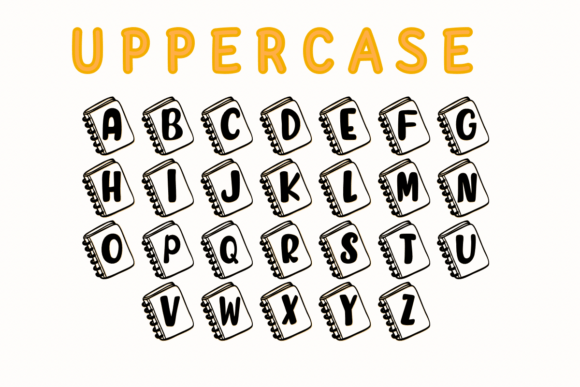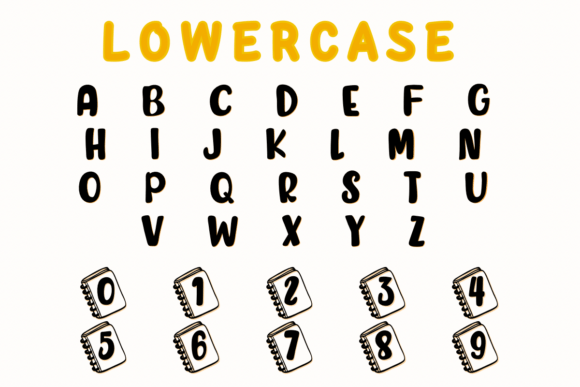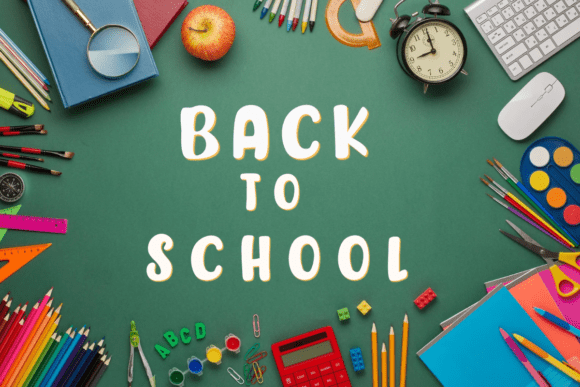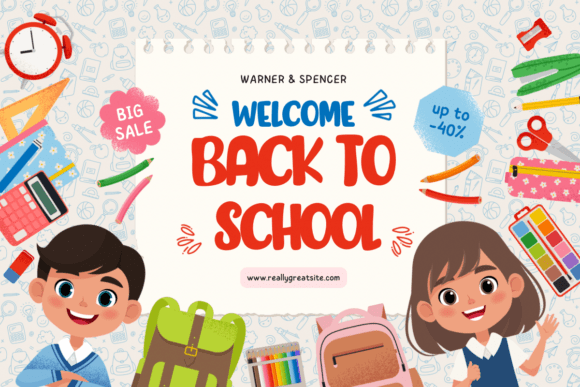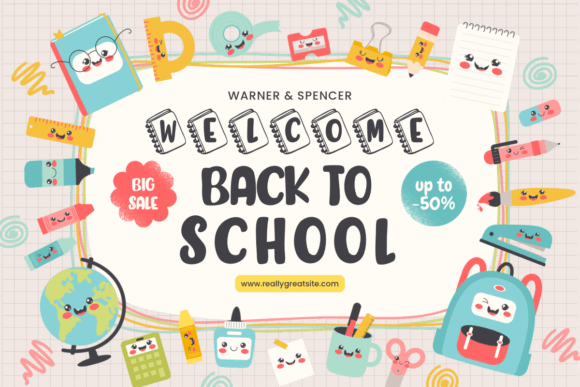
Spark a Love for Learning with Introduction Book: A Charming Decorative Font
Are you looking for a font that can capture the playful energy of the classroom and inspire a love for learning? Look no further than Introduction Book, a charming decorative font designed specifically for educational materials and youth-oriented designs. This delightful typeface features friendly, hand-drawn letterforms with a soft, rounded aesthetic that is sure to delight students and teachers alike.
The Perfect Font for Educational Materials
Introduction Book is characterized by its approachable rhythm and organic terminals, which evoke the nostalgic feeling of early school days and handwritten notes. This font is perfect for creating educational materials that are both fun and engaging. Whether you’re designing classroom decor, children’s book titles, teacher resources, academic event flyers, or school-themed social media content, Introduction Book is an extraordinary choice.
With Introduction Book, you can add a touch of handcrafted warmth and optimistic, academic charm to every word. This font is ideal for crafting standout headers for “Back to School” campaigns, creating fun worksheets, or designing eye-catching posters for academic events. The friendly and approachable nature of this font makes it perfect for use in educational settings, where the goal is to inspire and engage young minds.
Key Features of Introduction Book
- Hand-drawn letterforms: Introduction Book features friendly, hand-drawn letterforms that give it a unique and personal touch.
- Soft, rounded aesthetic: The font’s soft, rounded aesthetic makes it perfect for use in educational materials and youth-oriented designs.
- Approachable rhythm: The font’s approachable rhythm and organic terminals evoke the nostalgic feeling of early school days and handwritten notes.
- Optimistic, academic charm: Introduction Book delivers a sense of handcrafted warmth and optimistic, academic charm to every word.
Design Ideas with Introduction Book
Introduction Book is a versatile font that can be used in a variety of design projects. Here are some ideas to get you started:
- Classroom decor: Use Introduction Book to create eye-catching posters, banners, and displays for the classroom.
- Children’s book titles: Add a touch of whimsy and charm to your children’s book titles with Introduction Book.
- Teacher resources: Create engaging and informative teacher resources, such as worksheets and activity sheets, with Introduction Book.
- Academic event flyers: Design eye-catching flyers for academic events, such as science fairs and school concerts, with Introduction Book.
- School-themed social media content: Use Introduction Book to create engaging and shareable social media content for your school or educational institution.
Tips for Using Introduction Book
Here are some tips for using Introduction Book in your design projects:
- Pair with other fonts: Introduction Book pairs well with other fonts, such as sans-serif fonts, to create a visually appealing design.
- Use in large and small sizes: Introduction Book is legible in both large and small sizes, making it perfect for use in a variety of design projects.
- Experiment with colors: Introduction Book looks great in a variety of colors, so don’t be afraid to experiment and find the perfect color scheme for your design.
In conclusion, Introduction Book is a charming decorative font that is perfect for educational materials and youth-oriented designs. Its friendly, hand-drawn letterforms and soft, rounded aesthetic make it an ideal choice for creating engaging and inspiring designs. Whether you’re a designer, teacher, or crafty DIY enthusiast, Introduction Book is sure to spark a love for learning in everyone who sees it.